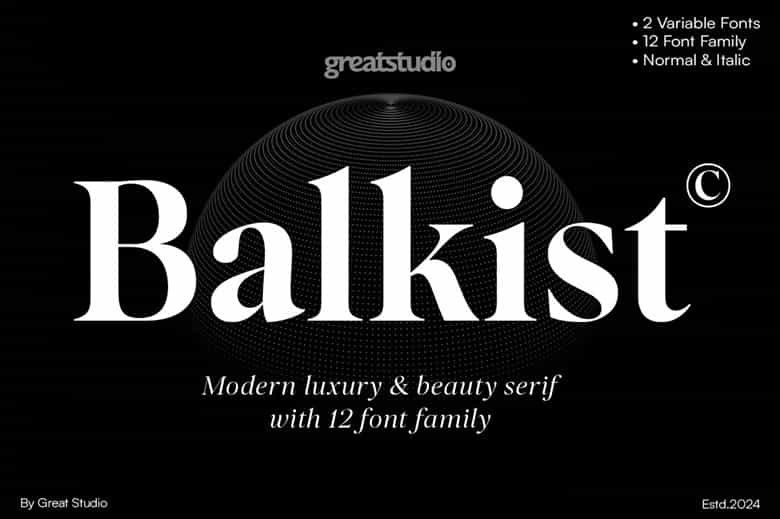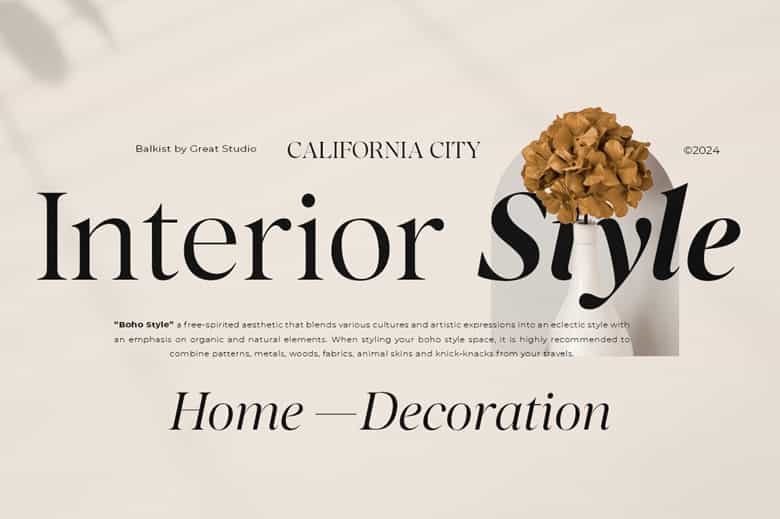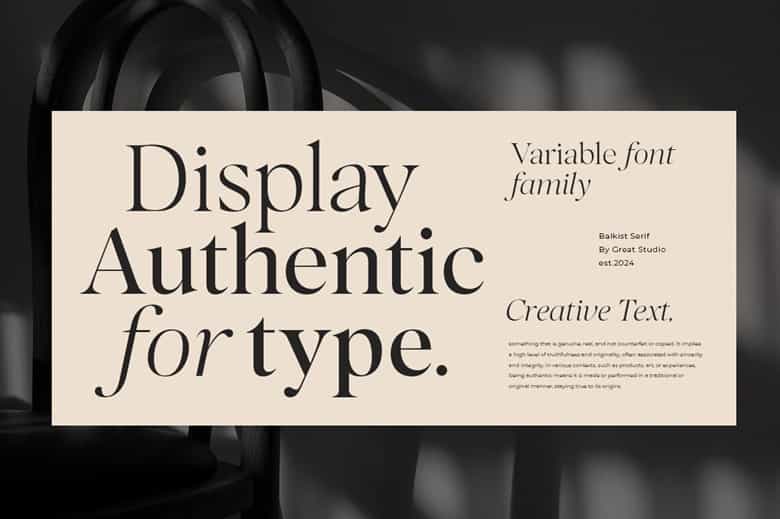
Balkist is suitable for transitional as well as contemporary designing and it’s high contrast makes it harmonious and stylish. The font broadens its employing by coming with weights extending to light to extra bold. There are natural curves as with any charmining Italics, The thick weights are greatly heavily weighted while the thinner weight have low contrast and optical corrections give a warm and soft looks.